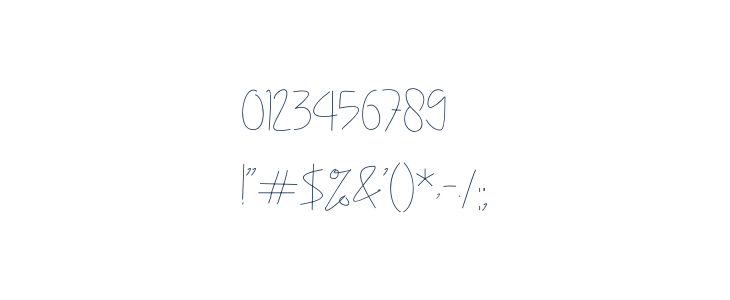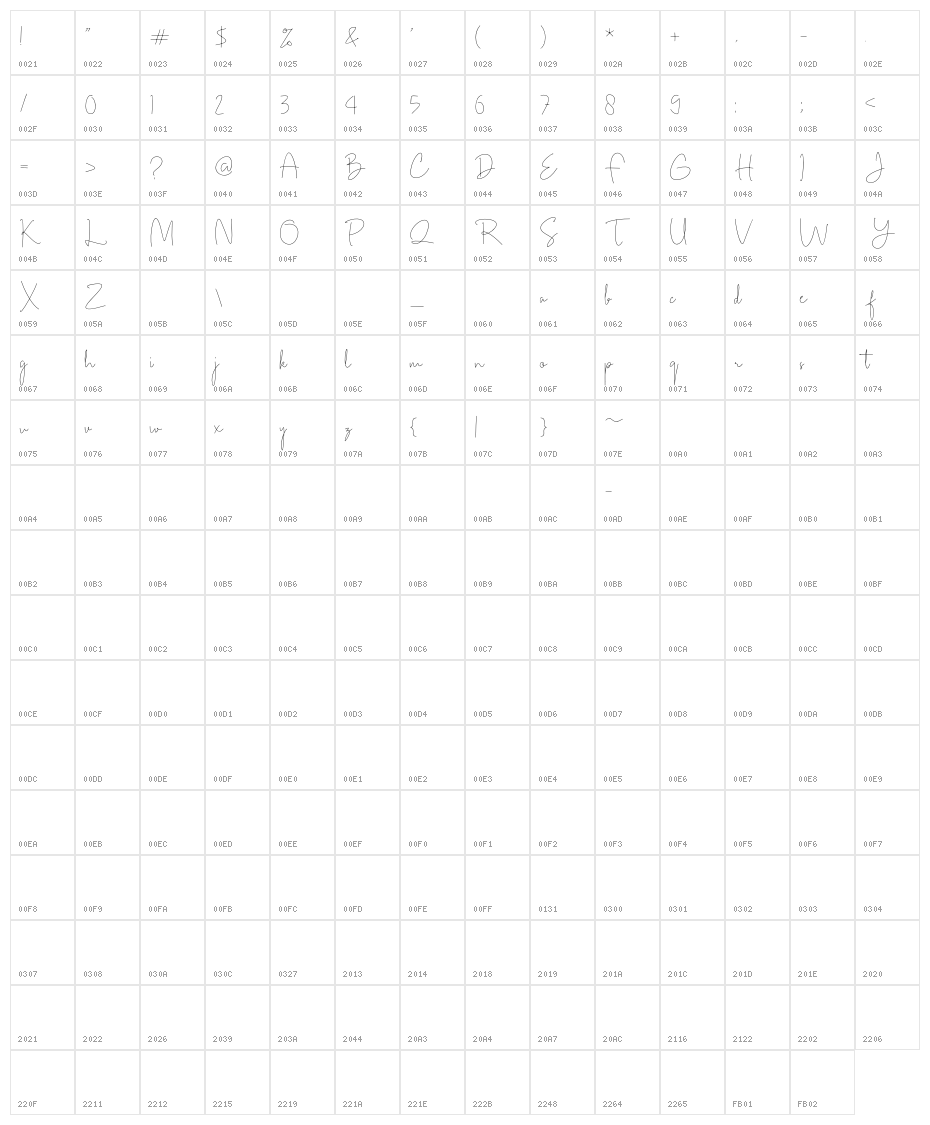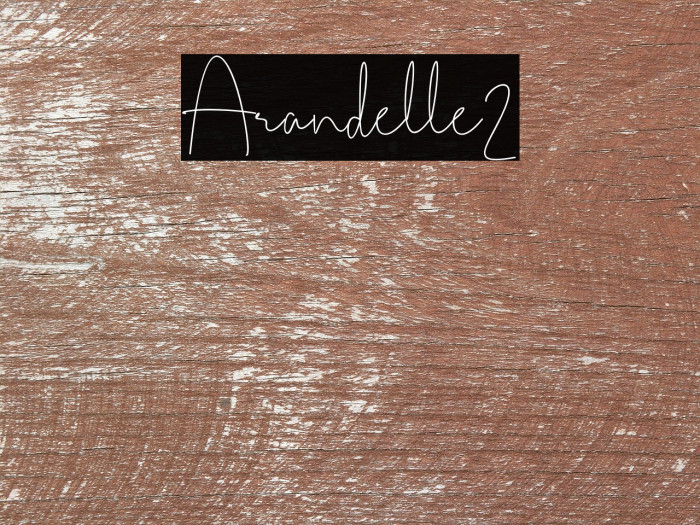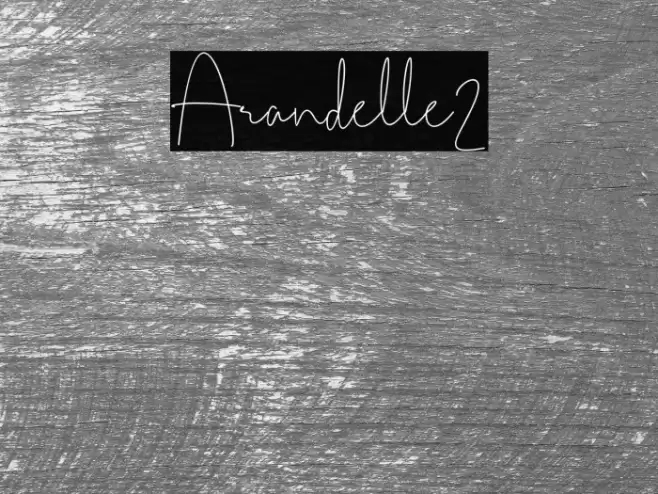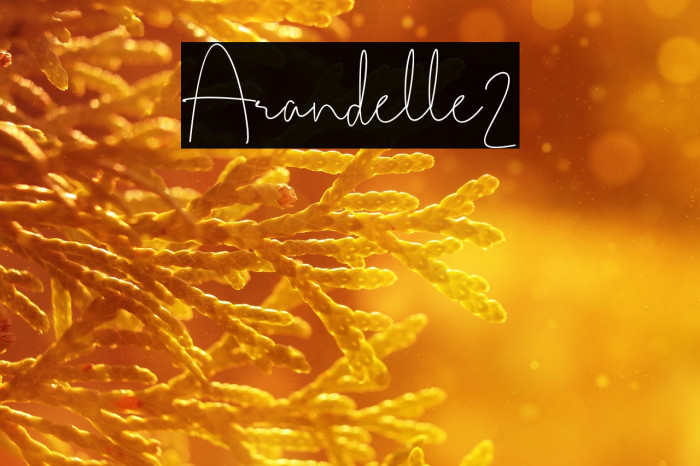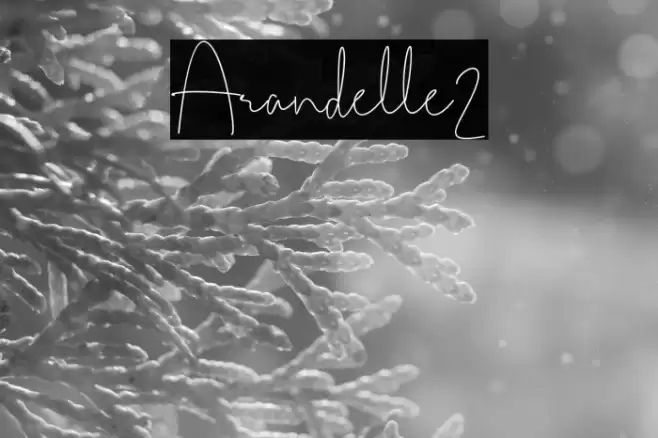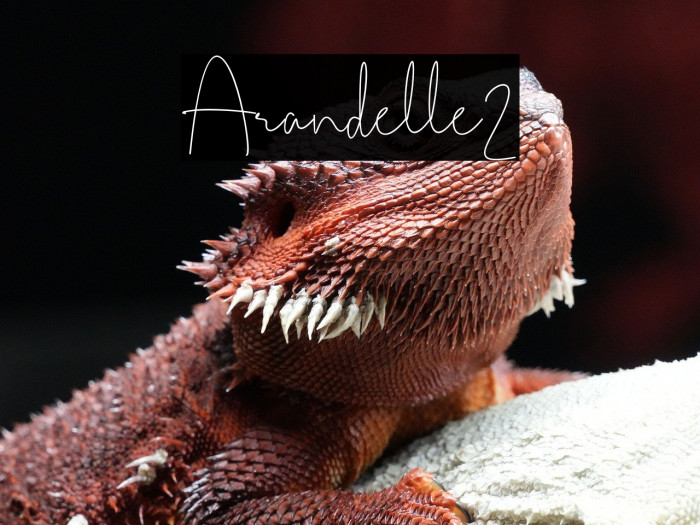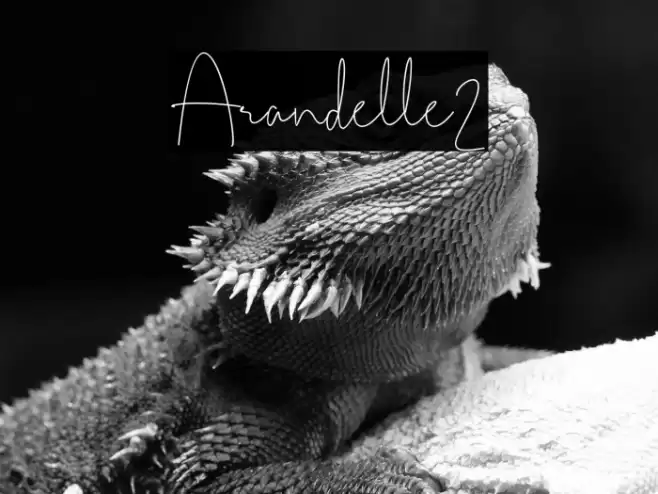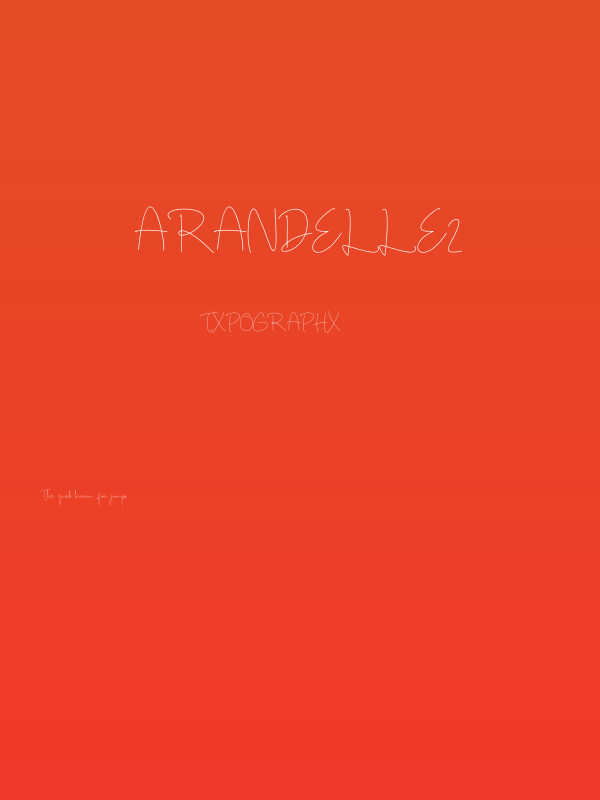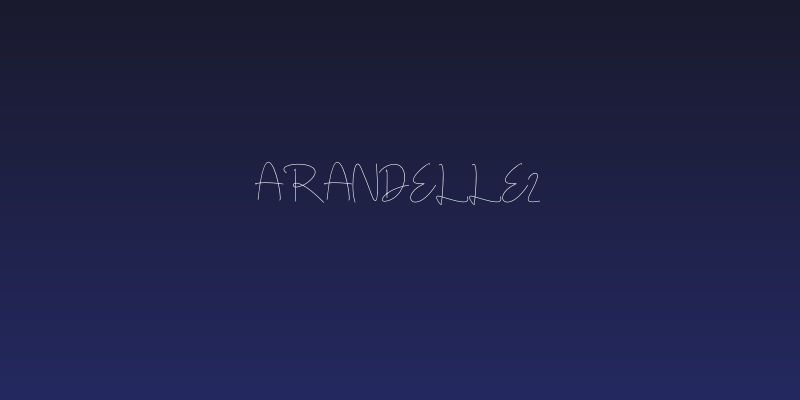
Arandelle2 Font
Arandelle2 Description
This font features a delicate, handwritten style with an elegant and flowing appearance. The uppercase letters are tall and slightly narrow, with a whimsical touch that adds a sense of playfulness. The lowercase letters are more fluid, with some characters featuring loops and curves that enhance the handwritten aesthetic. The numbers maintain the same thin, graceful lines, ensuring consistency throughout. Special characters are crafted with the same attention to detail, making them blend seamlessly with the rest of the font. This font's overall look is both sophisticated and approachable, making it suitable for a variety of creative applications.
| Overall Style | Elegant, Whimsical |
| Proposed Projects | Ideal for wedding invitations, greeting cards, personal branding, and creative projects that require a personal touch. |